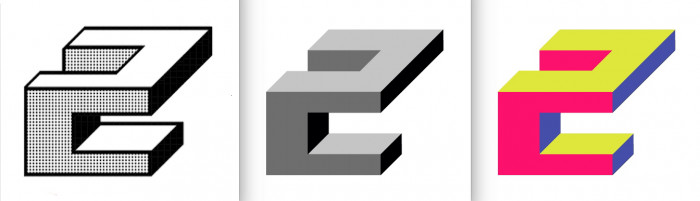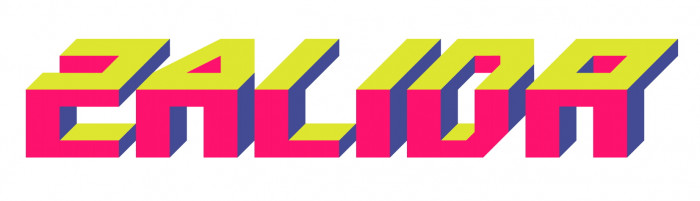
Based on an old glyph by the magnificent and always amazing Master geneus 1. Caps only. You can find an extra A at the "a" glyph and a little C placed at the "®". See also the gray version.
Wow, this is really impressive. I love both this fontstruction and the grey version!
@four: Thanks a million, compa! Now with colour it's much easier to create the illusion of the third dimension. Knocking on the 3D doors...
Congratulations! FontStruct Staff have deemed your FontStruction worthy of special mention. “zalida 3D Col eYe/FS” is now a Top Pick.
Quite the wonderful use of color for the 3D style!
@tortoiseshell: Thank you so much, pal! I know it's an unconventional and somewhat risky combination, but I liked it.
Nicely done, Elmo! I had an unreleased version sketched out with all caps, but would never have gone to create as many glyphs as you've created. Looks good in grayscale and in color!
wow! what a great font. It's fun to whatch. of course the original was a strong concept but you add your twist... Et voilà!!!
Pretty cool to be honest with you! Sadly i can not download this font, due to my 64-bit computer not even supporting color fonts when trying to download. I didn't realize you also had some Cyrillic letters input!
@ivarico-fonts: Thank you very much. Colour fonts are very cool to make and look at, and it's a shame they can only be used in some Adobe products and few web browsers at the moment. But I think they are an interesting future.